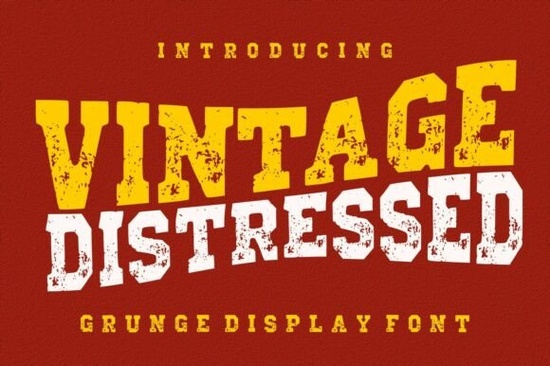
The Vintage Distressed Font is a standout choice for anyone looking to add a rugged, nostalgic feel to their design projects. This bold and textured typeface draws inspiration from classic vintage typography, blending strong letterforms with a grunge effect that gives it an authentic retro and industrial vibe. Whether you're working on posters, t-shirt designs, logos, or packaging, this font brings a powerful and timeless character to your work.
Designed with creativity in mind, the Vintage Distressed Font works well across a range of applications. Its distressed texture adds depth and visual interest, making it ideal for projects that require a sense of history or raw energy. The font’s versatility means it can be used in both digital and print formats, offering flexibility for designers, crafters, and small business owners alike.
What Makes the Vintage Distressed Font Unique?
The Vintage Distressed Font stands out due to its combination of strong, clear letterforms and a worn, textured finish. This mix creates a look that feels both authentic and modern, making it suitable for a wide range of design needs. The font’s grunge effect adds a layer of depth, giving it a more dynamic and eye-catching appearance compared to standard typefaces.
One of the key benefits of using this font is its ability to convey a specific mood or theme. Whether you're going for a retro, industrial, or edgy aesthetic, the Vintage Distressed Font can help you achieve that look without needing to search for multiple fonts. Its clean yet rugged style makes it easy to pair with other elements in your design, ensuring a cohesive and professional result.
Best Uses for the Vintage Distressed Font
This font is particularly effective in projects that require a vintage or industrial feel. It's a great option for creating posters with a retro flair, designing t-shirts with bold graphics, or developing logos that need a strong, memorable presence. Its distressed texture also works well for packaging designs, especially for products that aim to evoke a sense of nostalgia or craftsmanship.
How to Use the Vintage Distressed Font Effectively
To get the most out of the Vintage Distressed Font, consider how it interacts with other design elements. Pairing it with simpler fonts or solid colors can help balance its boldness and prevent visual clutter. Experimenting with different sizes and placements can also enhance its impact, allowing it to serve as a focal point or a subtle background element depending on your design goals.
When working with this font, keep in mind that its distressed texture may affect readability in certain contexts. For example, very small text or low-contrast backgrounds might make it harder to read. Testing your designs in different formats and environments can help ensure that the font remains legible while still maintaining its distinctive style.
Whether you're a designer, crafter, or small business owner, the Vintage Distressed Font offers a versatile and expressive tool for your creative projects. Its unique blend of vintage charm and modern functionality makes it a valuable asset in any design portfolio.
Before finalizing your use of the Vintage Distressed Font, take a moment to review your design for consistency and clarity. Ensure that the font complements the overall look and feel of your project, and don’t hesitate to try different variations to find the best fit. With the right approach, this font can elevate your work and help you stand out in a competitive creative landscape.